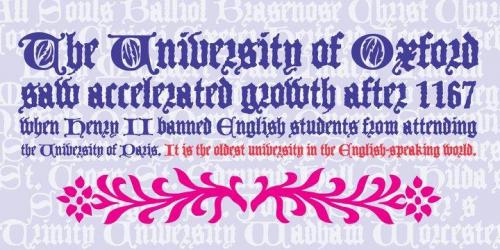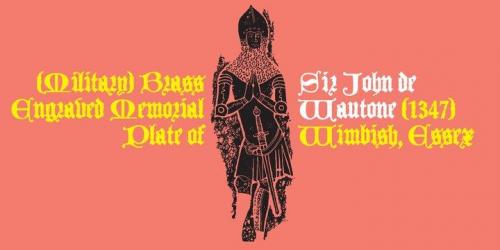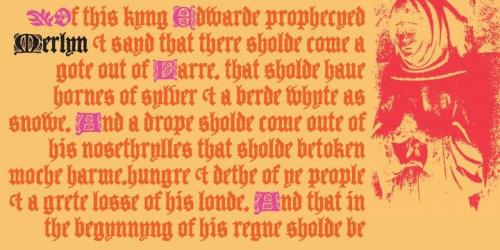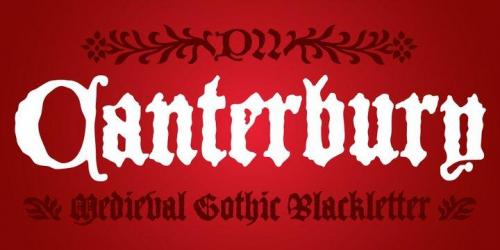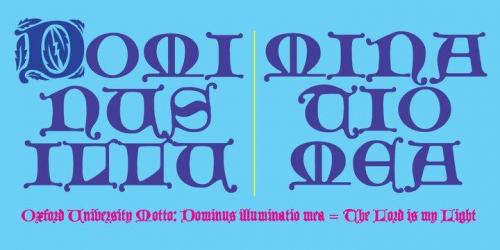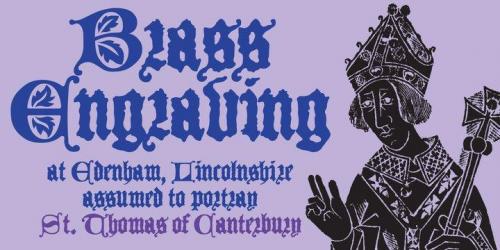
Canterbury is a late Medieval Gothic font with a rough edge. This blackletter face is available with four different types of Capital initial letters or combined into one Opentype Pro font with all variations plus historic ligatures, alternates and even a few ornaments.
- Designer: Ted Staunton